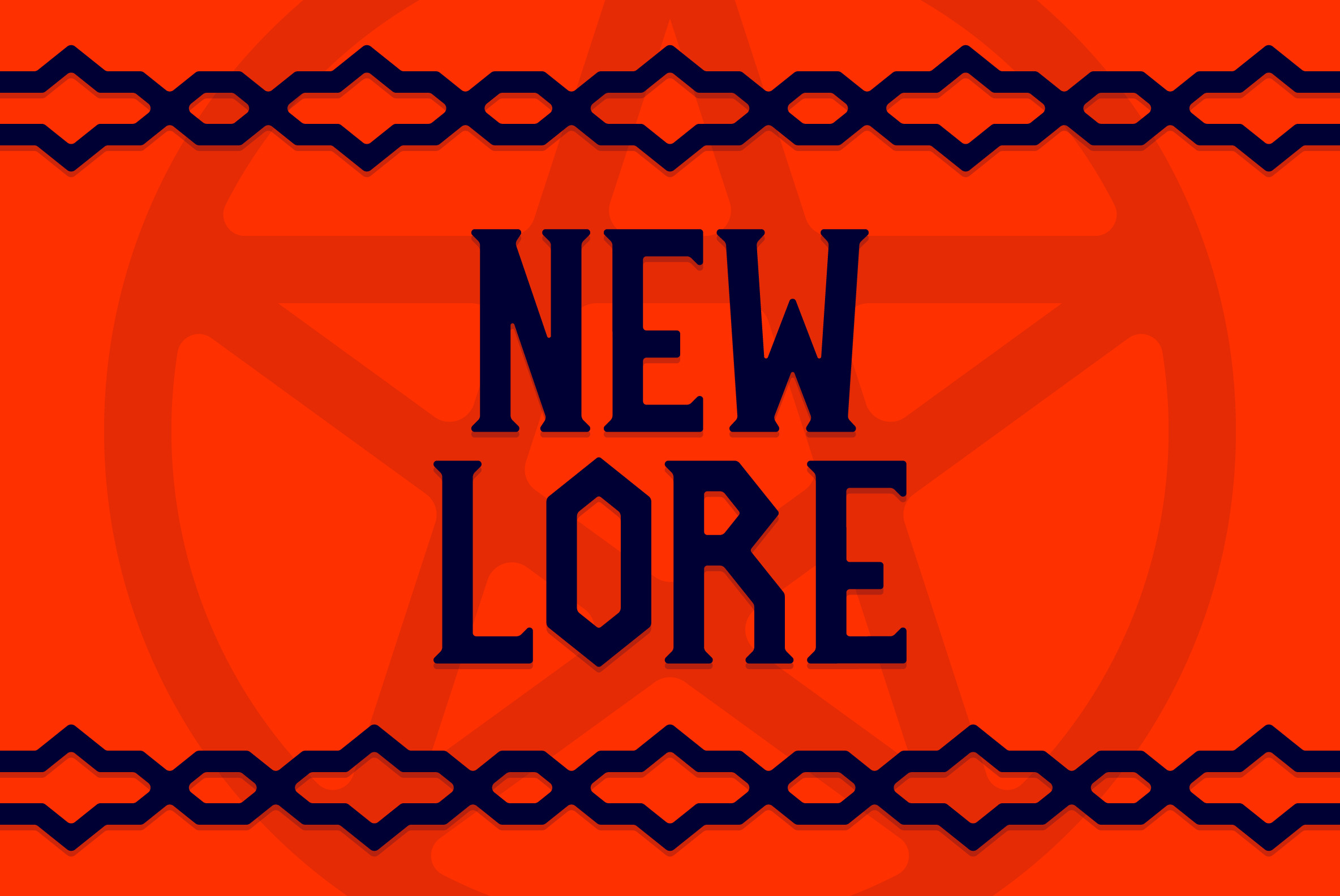
New Lore - A Gothic Serif Font
A soft gothic serif font inspired by my favorite stuff and things. Great for layouts, invitations, logos, apparel, or artwork.
It contains an uppercase alphabet with numbers.